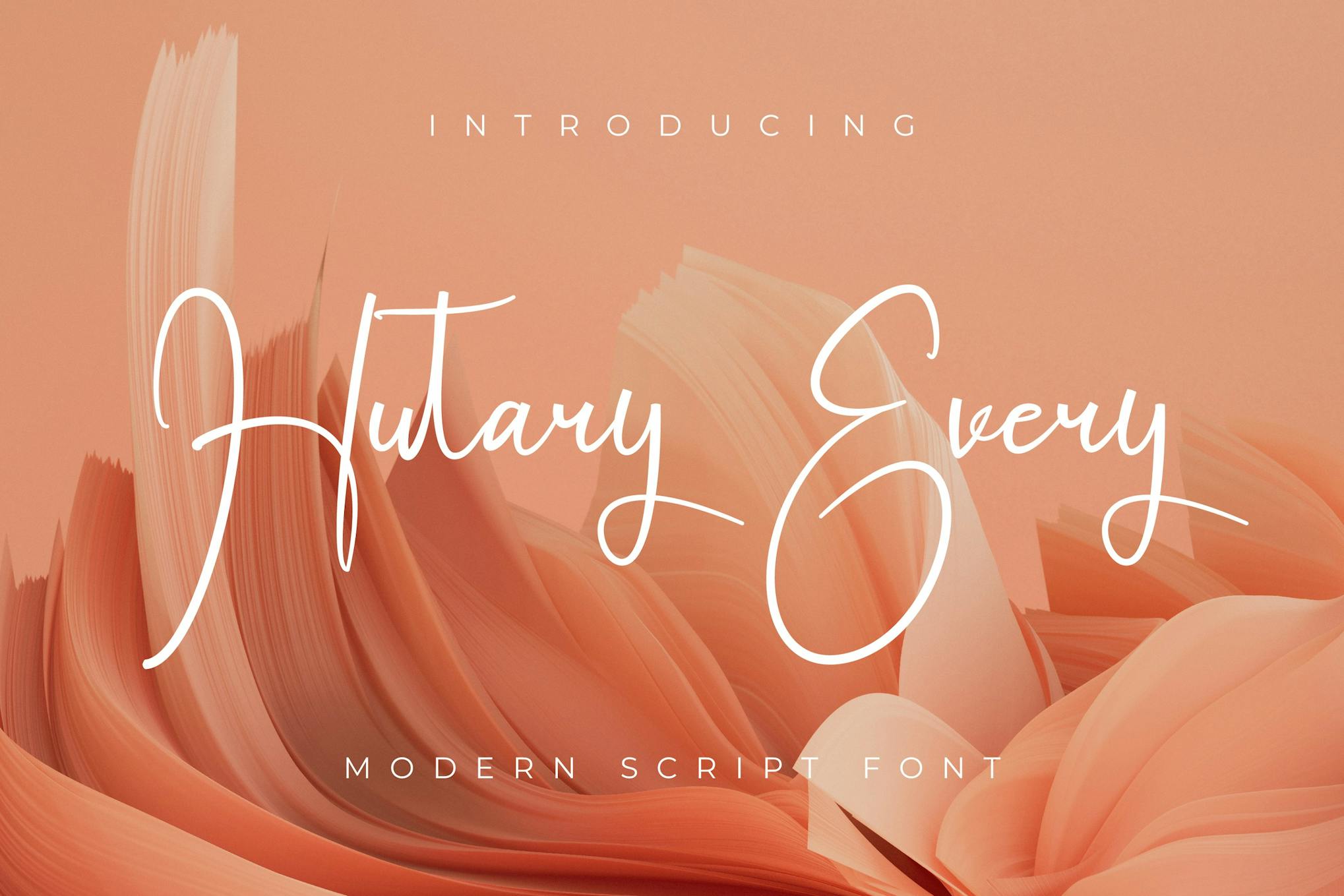
Hutary Every Font
The Hutary Every Font is perfect for versatile branding projects, multi-purpose logo designs, comprehensive corporate identities, flexible packaging systems, adaptable website typography, universal marketing materials, diverse editorial layouts, scalable signage solutions, all-purpose business communications, and comprehensive design portfolios.
What makes the Hutary Every Font so exciting is its remarkable versatility and comprehensive design approach that provides complete typographic solutions for virtually any creative challenge. This exceptional typeface features carefully balanced letterforms, adaptable character spacing, and universal design principles that create perfect harmony across diverse applications and design contexts. The font's comprehensive functionality and timeless appeal make it an outstanding choice for designers seeking a reliable, professional typeface that performs exceptionally across multiple projects and maintains consistent quality in any creative environment.
The Hutary Every Font family includes extensive style variations, featuring multiple weights from Thin to Black, condensed and extended options, plus complete italic sets. Each variation maintains the signature universal appeal while offering different levels of visual impact and spatial efficiency, providing designers with comprehensive typographic tools for creating complex hierarchies and diverse layout systems across unlimited project types.
The comprehensive design engineering of Hutary Every Font demonstrates expert universal typography craftsmanship, with each character optimized for maximum legibility, visual harmony, and functional performance across all sizes and media types. The font's extensive character set includes complete international language support, advanced OpenType features, comprehensive punctuation, and specialized symbols, ensuring seamless integration into global projects and professional workflows.
Expertly optimized for both digital and print environments, this outstanding font family maintains perfect clarity and visual consistency across all media formats, sizes, and applications. From large-scale environmental graphics to detailed text content, Hutary Every Font performs flawlessly while preserving its distinctive universal character and professional versatility.